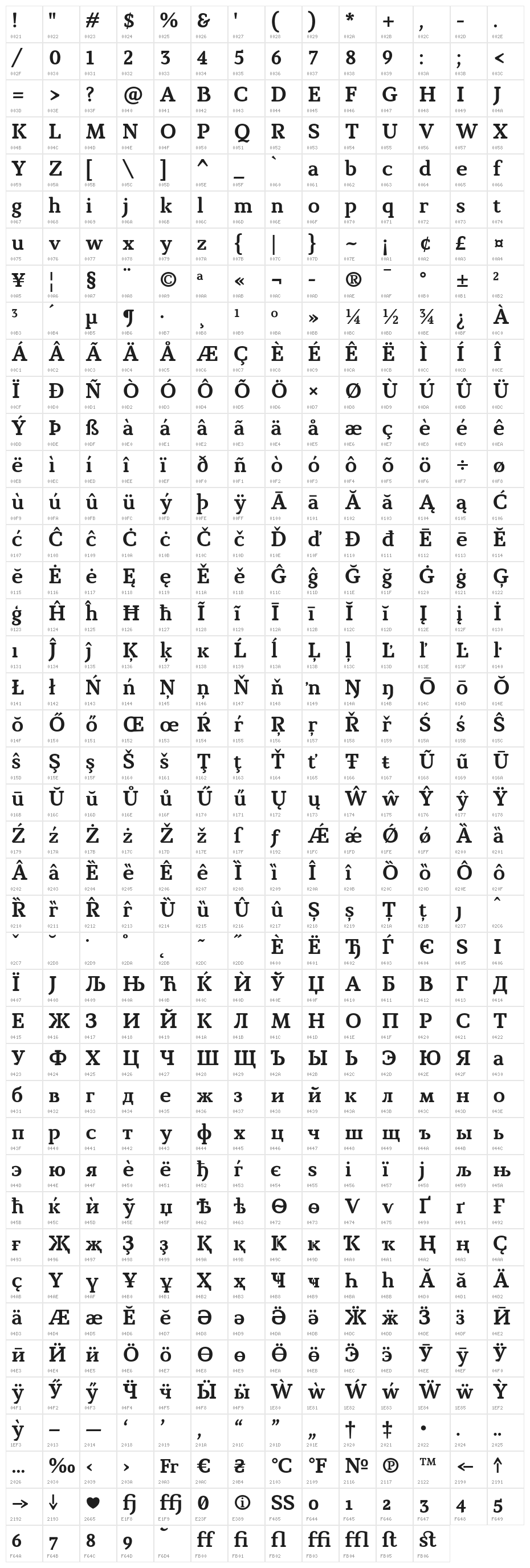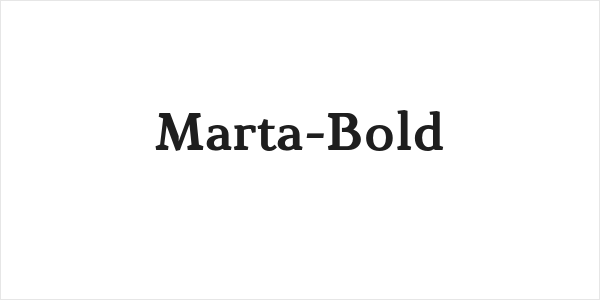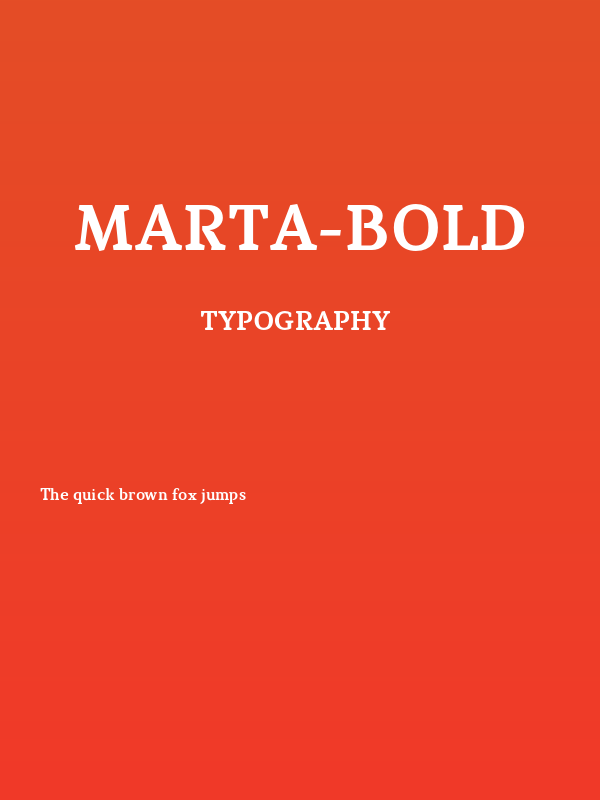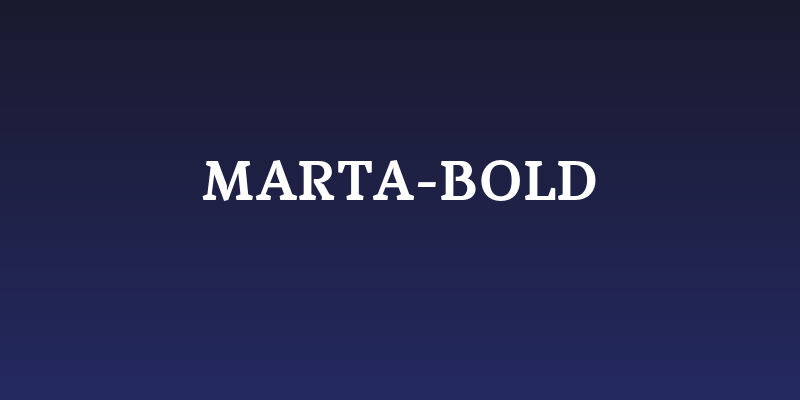
Marta-Bold Font
Marta-Bold Description
This font features a bold and commanding presence with its strong, thick strokes and well-defined serifs. The uppercase letters exhibit a classic and authoritative style, while the lowercase letters maintain a consistent and harmonious flow. The numerals are robust and clear, ensuring excellent readability. Special characters are designed with the same attention to detail, making them stand out while remaining cohesive with the overall design. The font's bold weight and high contrast between thick and thin strokes give it a modern yet timeless appeal, suitable for a variety of applications.
| Proposed Projects | Ideal for headlines, branding, editorial design, and signage where a strong, authoritative presence is desired. |